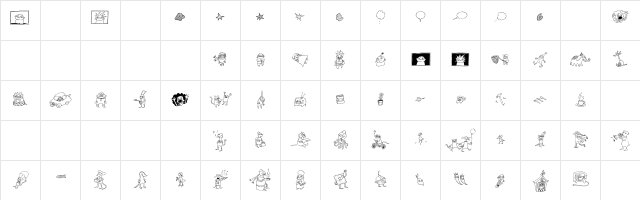
Chicken Regular Free Font
Chicken Regular
Design Context for Chicken
Chicken is a composed and adaptable typeface that performs quietly and consistently across a wide range of design contexts.